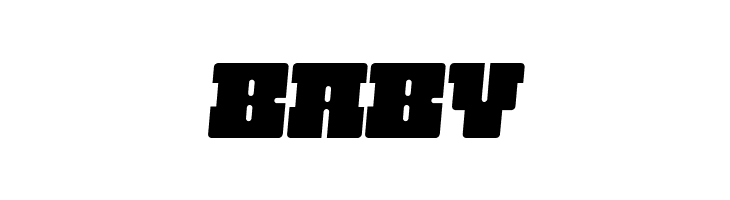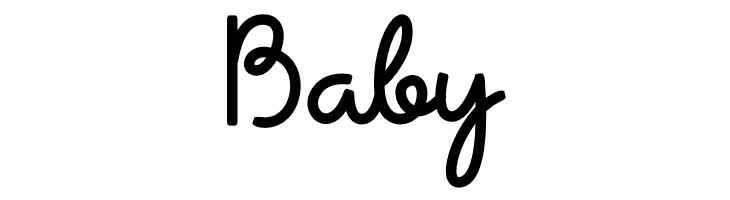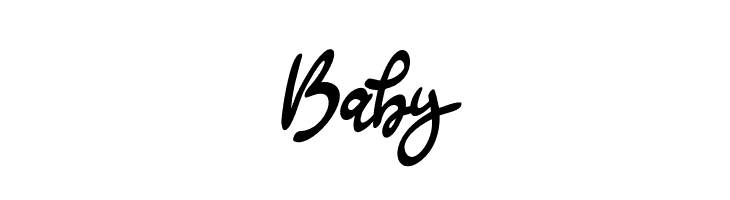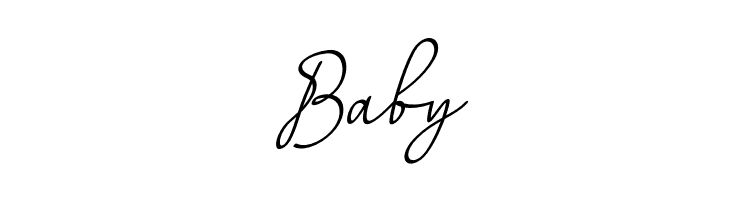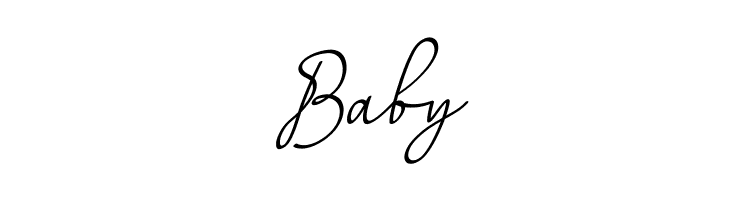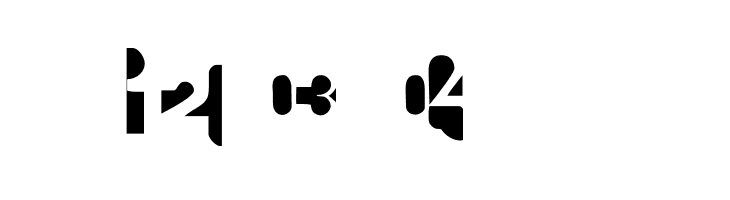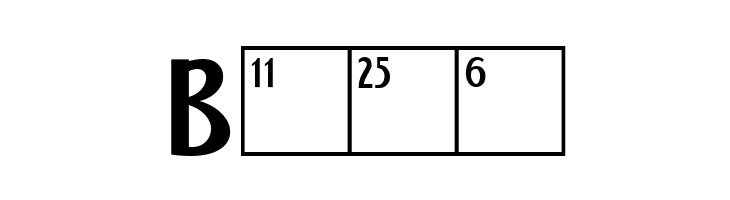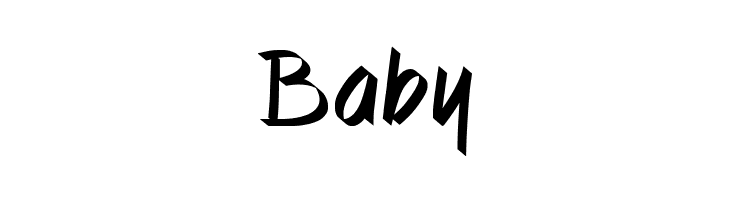
A bold, fluid script font with interconnected, calligraphic strokes.
A bold, modern font with high contrast and elegant, condensed uppercase letters.
A bold, modern stencil-style font with geometric shapes and clean lines.
A lively and elegant script font with fluid strokes and playful swashes.
A bold, geometric font with high contrast and a modern style.
An elegant, flowing script font with a calligraphic style.
An elegant, flowing script font with graceful curves and a sophisticated style.
A lively and flowing script font with elegant curves and a playful touch.
A playful handwritten font with a casual and friendly style.
A dynamic brush-style font with bold, angular strokes and a handwritten feel.